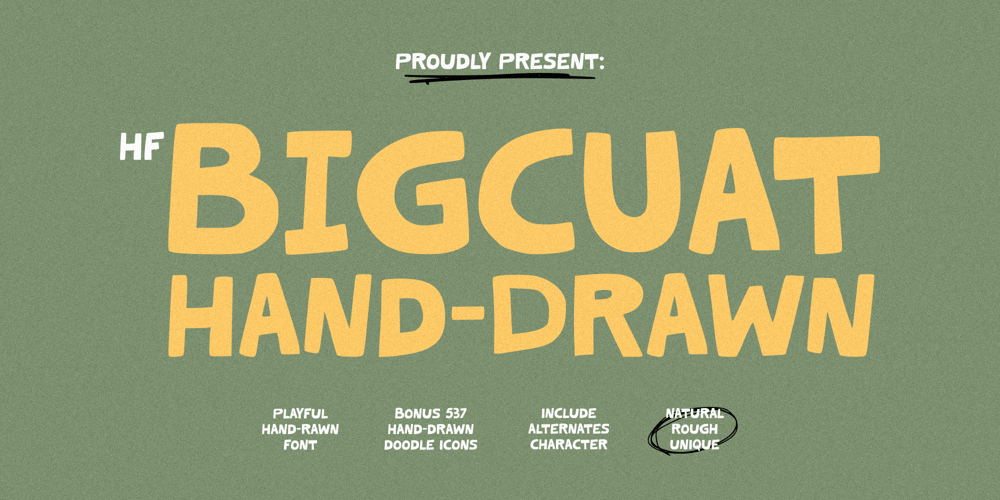
HF Bigcuat
HF Bigcuat font
HF Bigcuat Font Family was designed by Holis Majid and published by Holis.Mjd. HF Bigcuat contains 2 styles and family package options. HF Bigcuat is a thick or bold handwritten cartoon font made from markers with a natural and organic texture and roughness that creates a playful and funny impression for your design.HF Bigcuat is available in a natural doodle/dingbats version which can add creativity to the design you will use.